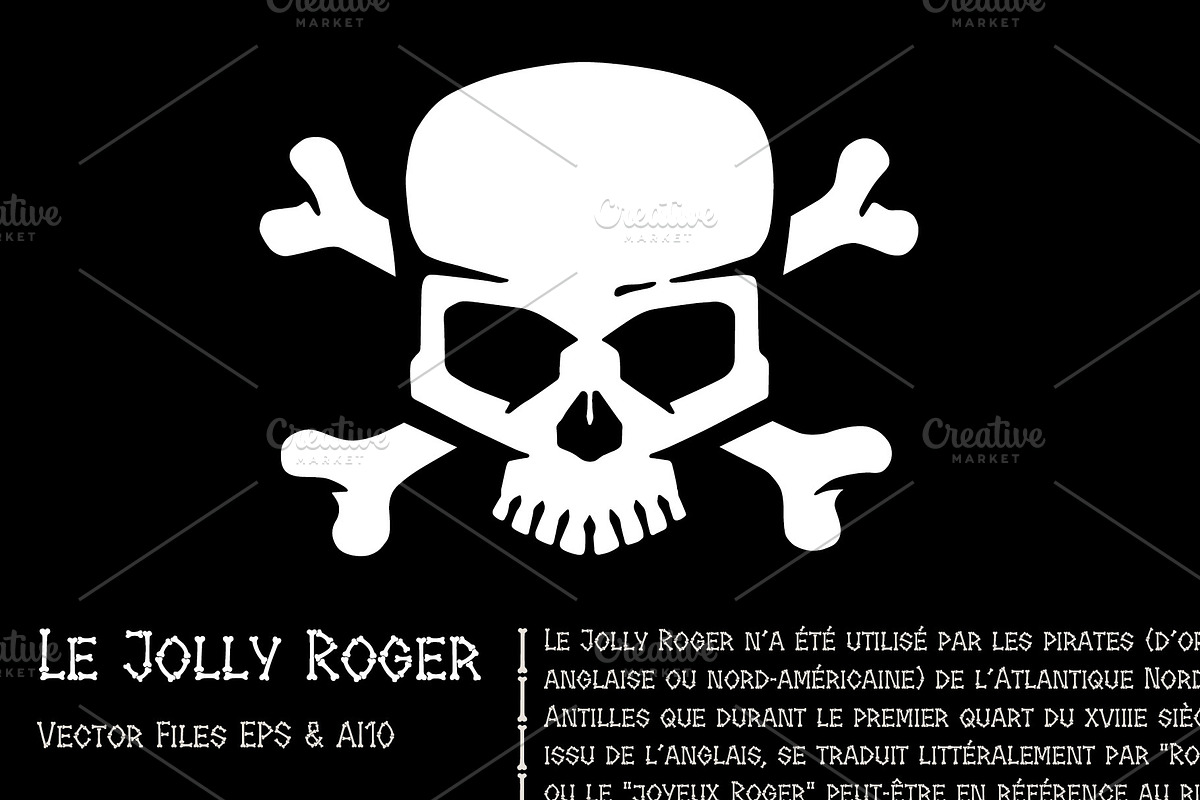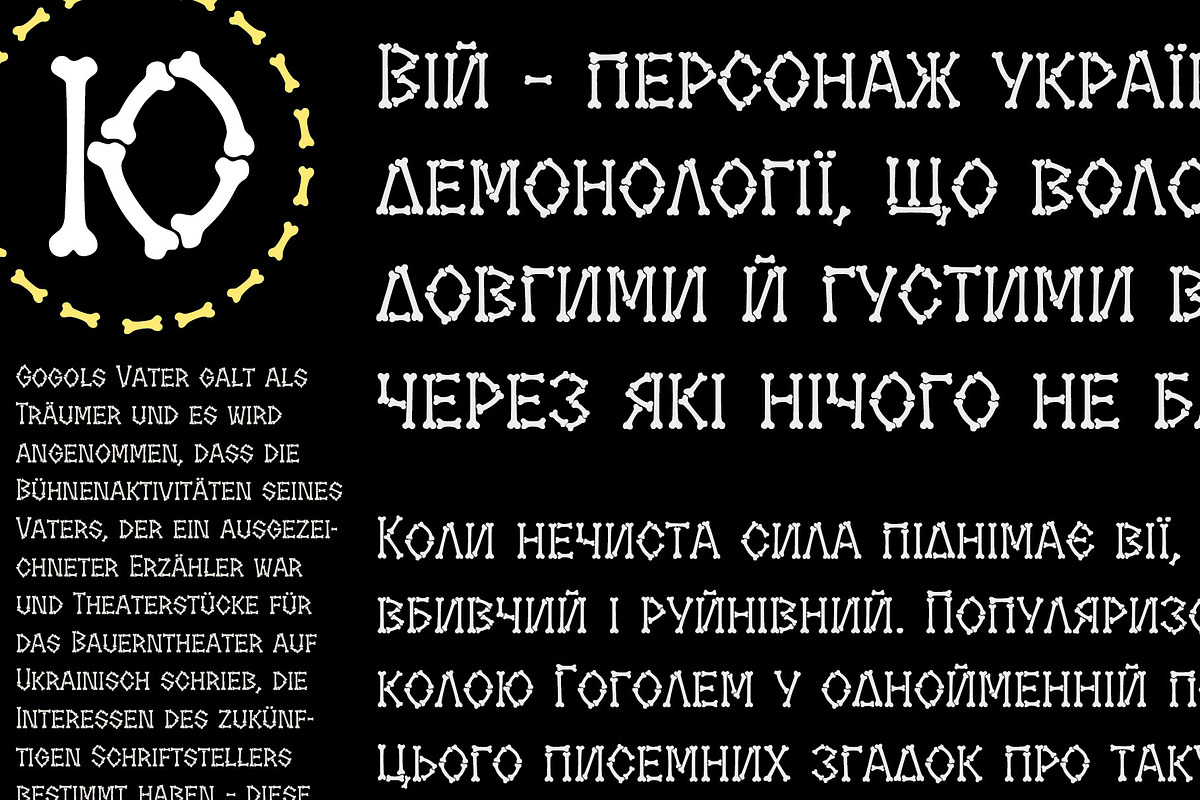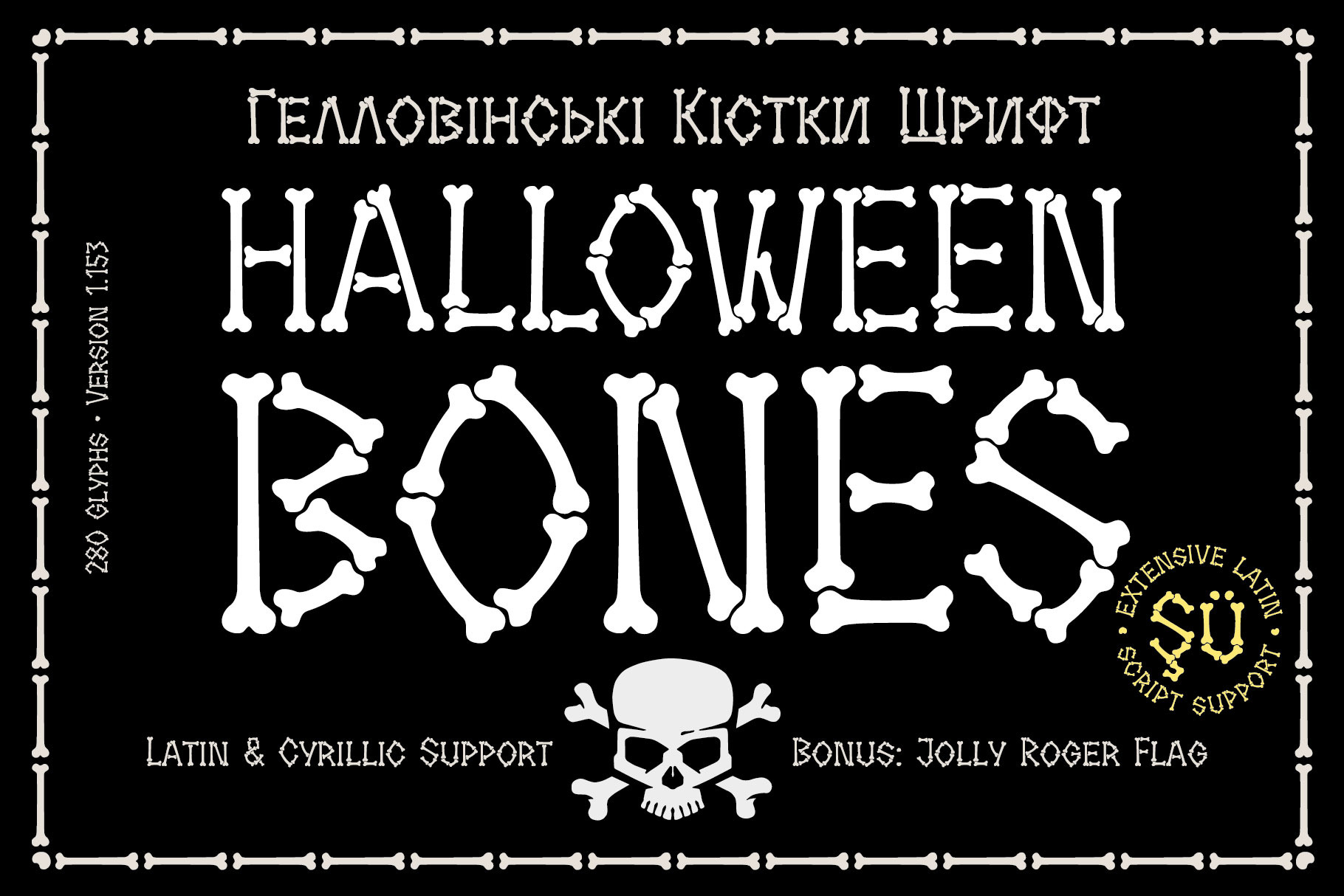
Halloween Bones font
Bones font for Halloween or horror movie logo design. Made of bones and joints. Good for Halloween posters, banners, invitation cards, social media, t-shirt, label design etc. Hand drawn typeface, stencil letters, numbers and symbols. Cyrillic and Latin, 280 Glyphs. Version 1.153
- Uppercase, small caps, numbers, special characters, some alternatives.
- Extensive Latin and Cyrillic, wide language Support: English, German, Spanish, French, Ukrainian, Portuguese, Italian, Danish, Turkish, Dutch, Finnish, Norwegian, Swedish, Estonian, Irish gaelic, Scots gaelic, Frisian, Galician, Bulgarian, Russian, Indonesian, Malagasy, Swahili etc.